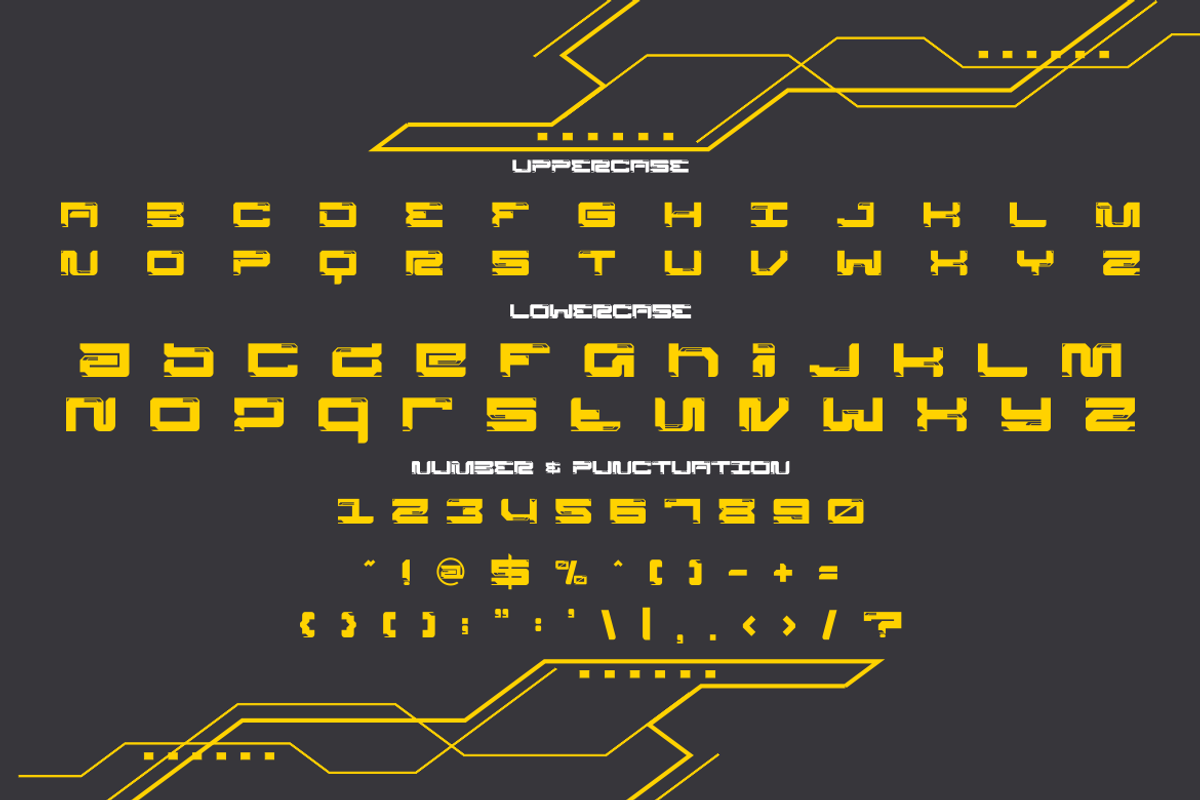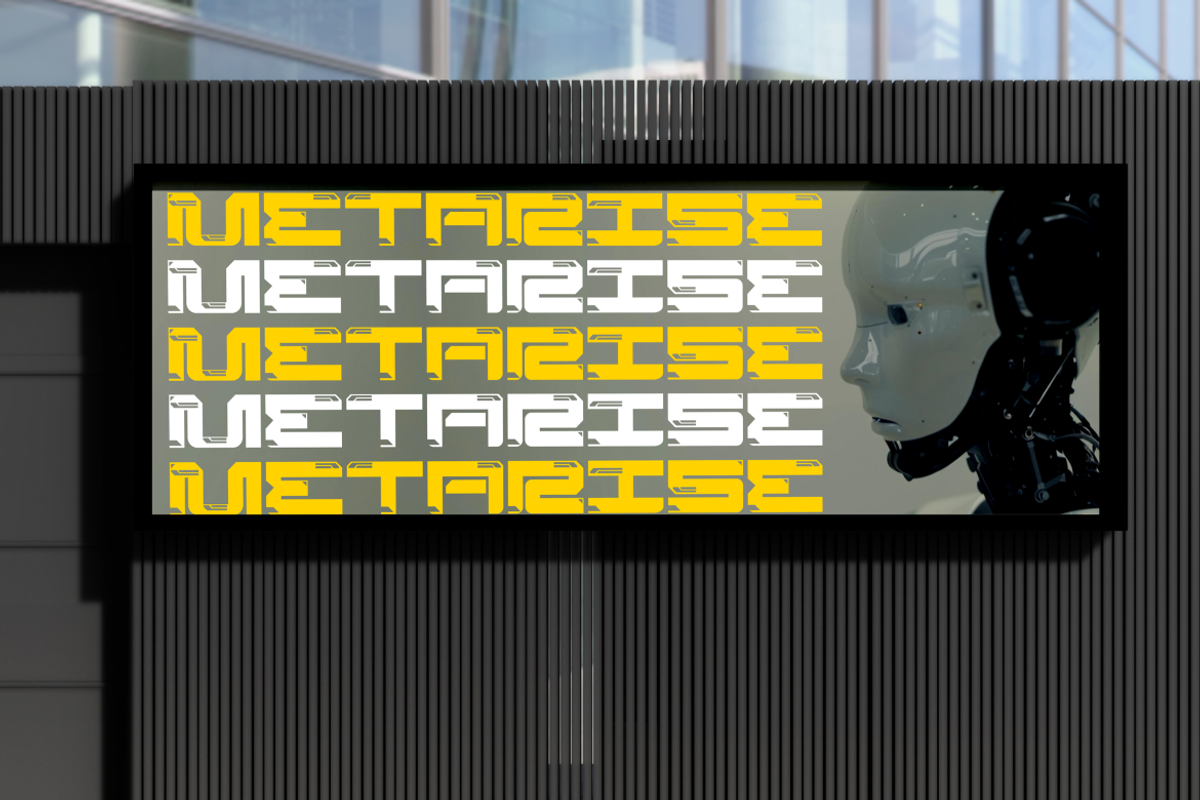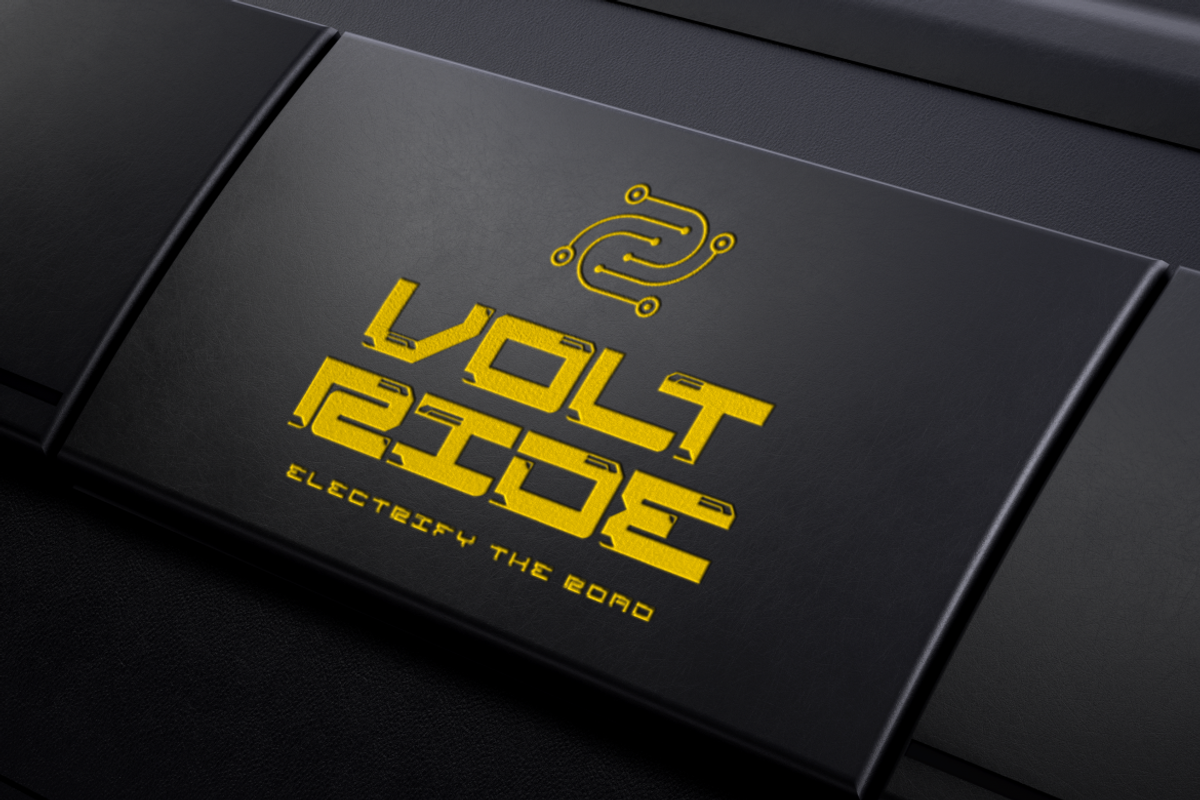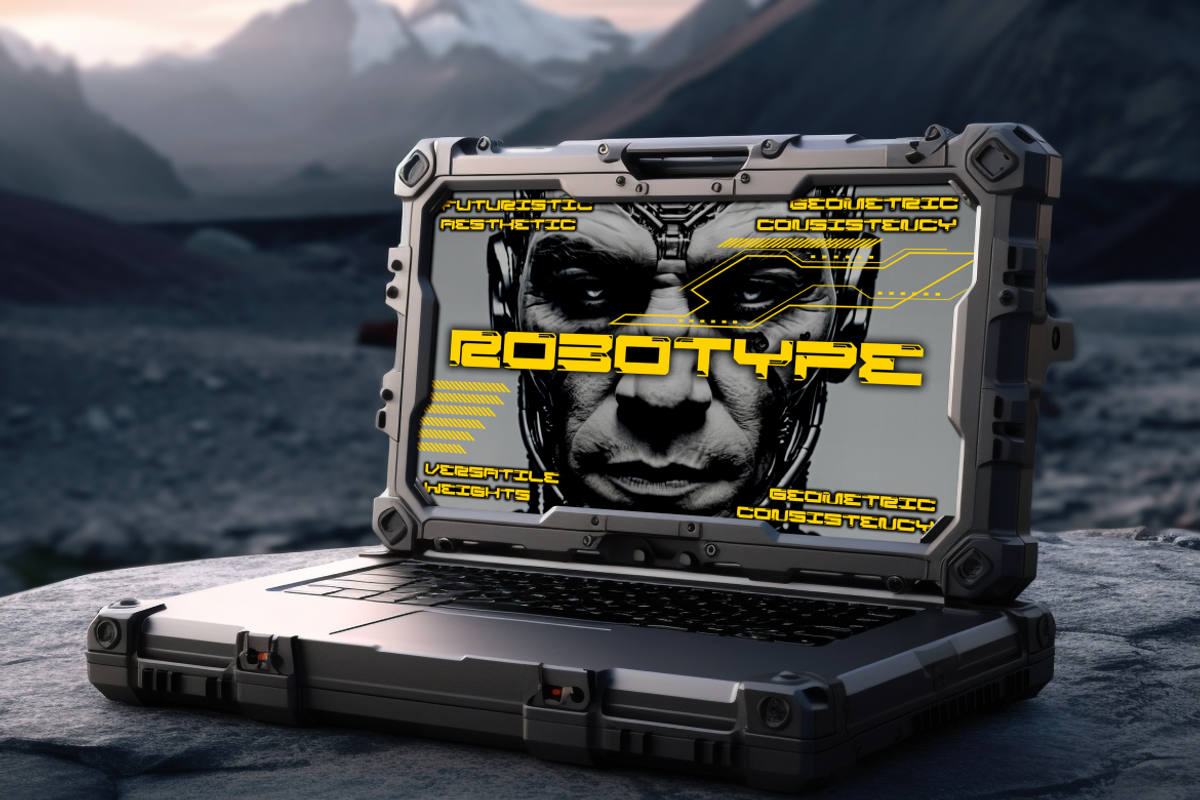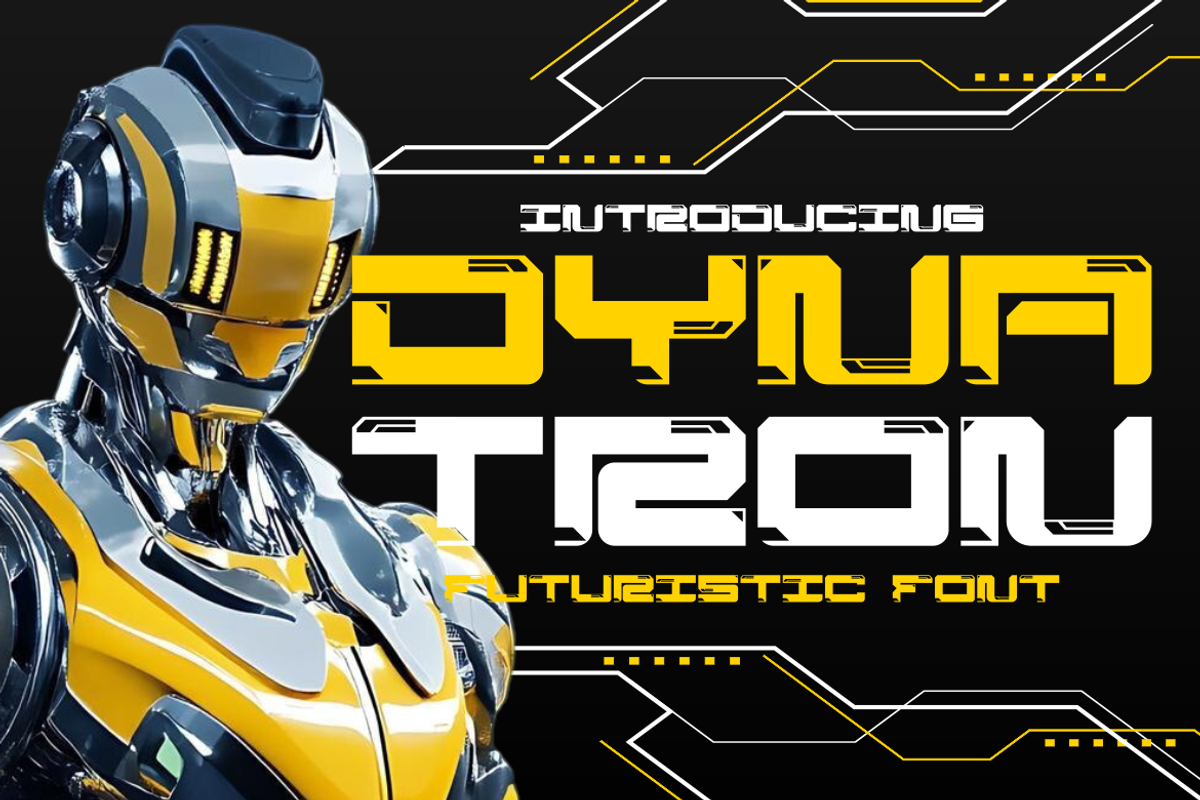
Dynatron Futuristic Font
Dynatron Futuristic Font is a modern typeface designed with precision, strength, and futuristic energy. The letterforms are bold and geometric, with strong rectangular bases and angular cuts that create a robotic and high-tech vibe. Each character carries a mecha-inspired structure, giving the font a dynamic yet structured appearance. The consistent width across letters enhances readability while maintaining a mechanical and cybernetic personality. This makes the font highly suitable for industries and projects that want to communicate innovation, power, and forward-thinking identity.
Dynatron Futuristic Font fits perfectly into a wide range of creative uses, including logo design, sci-fi posters, packaging, business branding, advertising titles, magazine headlines, and movie covers. Its futuristic essence is ideal for technology-driven projects, gaming visuals, product packaging, and even merchandise like stickers or invitation cards. The balance between solid weight and geometric precision ensures that designs appear striking, modern, and memorable. With its versatility, this font can elevate any project that requires a strong futuristic statement, making it an excellent choice for designers seeking bold cyberpunk and robotic-inspired typography.